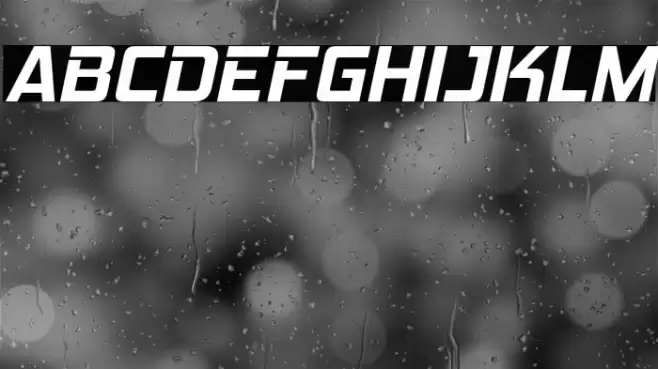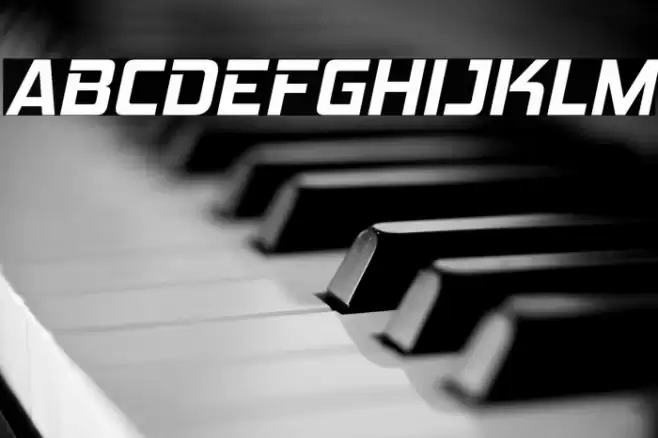
HemiHeadRg-BoldItalic Font
HemiHeadRg-BoldItalic Description
This font features a bold and italicized style with a modern and sleek appearance. The characters are slightly condensed, giving it a compact look. The design includes sharp angles and clean lines, creating a futuristic and dynamic feel. The uppercase and lowercase letters maintain a consistent style, with a slight slant that enhances the italic effect. The numerals are clear and distinct, matching the overall aesthetic of the font. Special characters are well-integrated, maintaining the font's cohesive design. This font is suitable for projects that require a strong and contemporary look.
A bold, italicized font with a modern, sleek, and slightly condensed style from Uncategorized fonts.
- Proposed Projects: Ideal for technology branding, sports team logos, automotive designs, and dynamic advertising campaigns.
- Use Case: Logos, Headlines, Branding